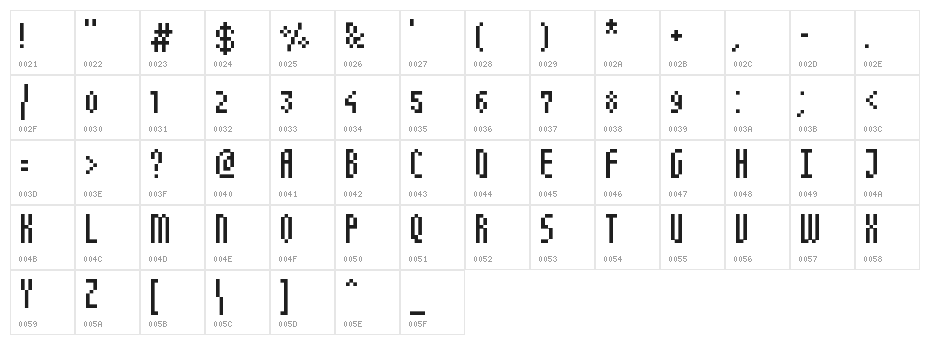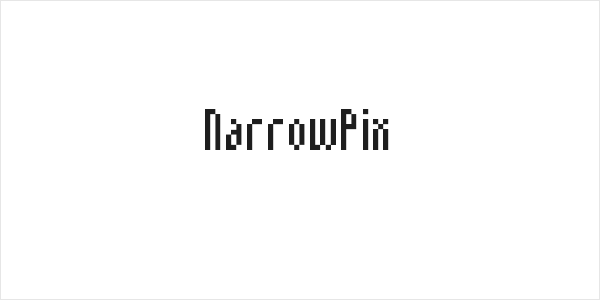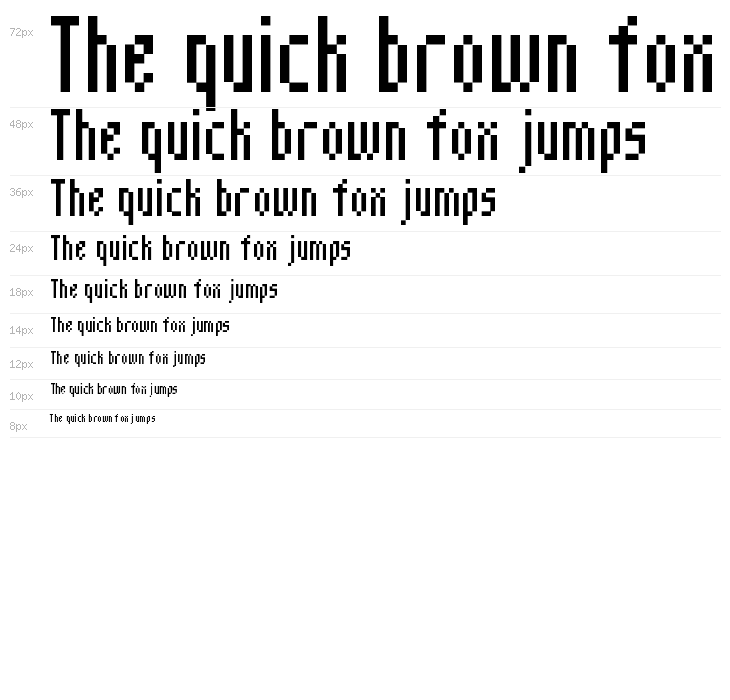
NarrowPix Font
| Caso d'uso | Logos, Headlines, Digital Art |
| Progetti proposti | Perfect for retro video game designs, digital art projects, tech-themed posters, and any creative work that aims to evoke a sense of nostalgia for early digital displays. |